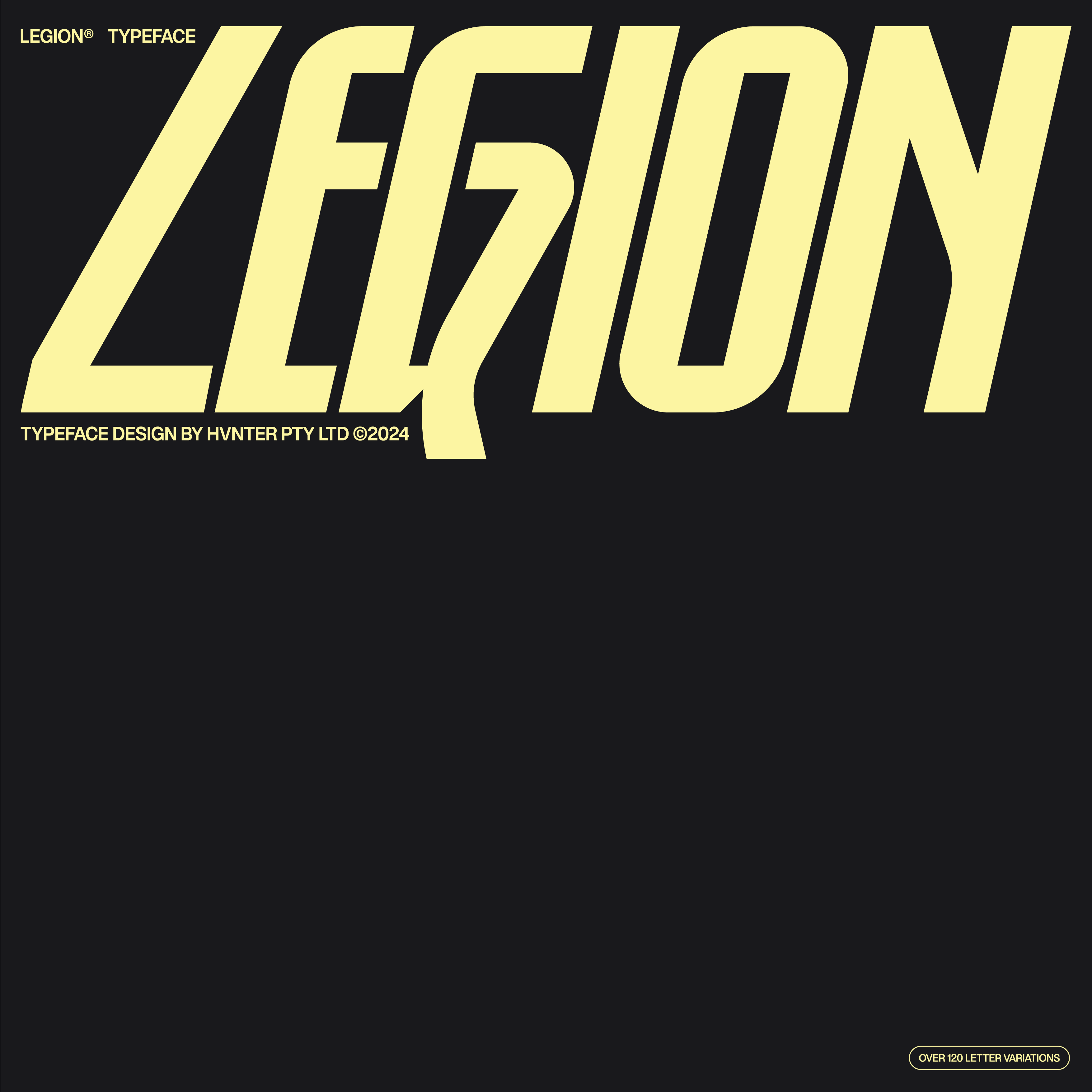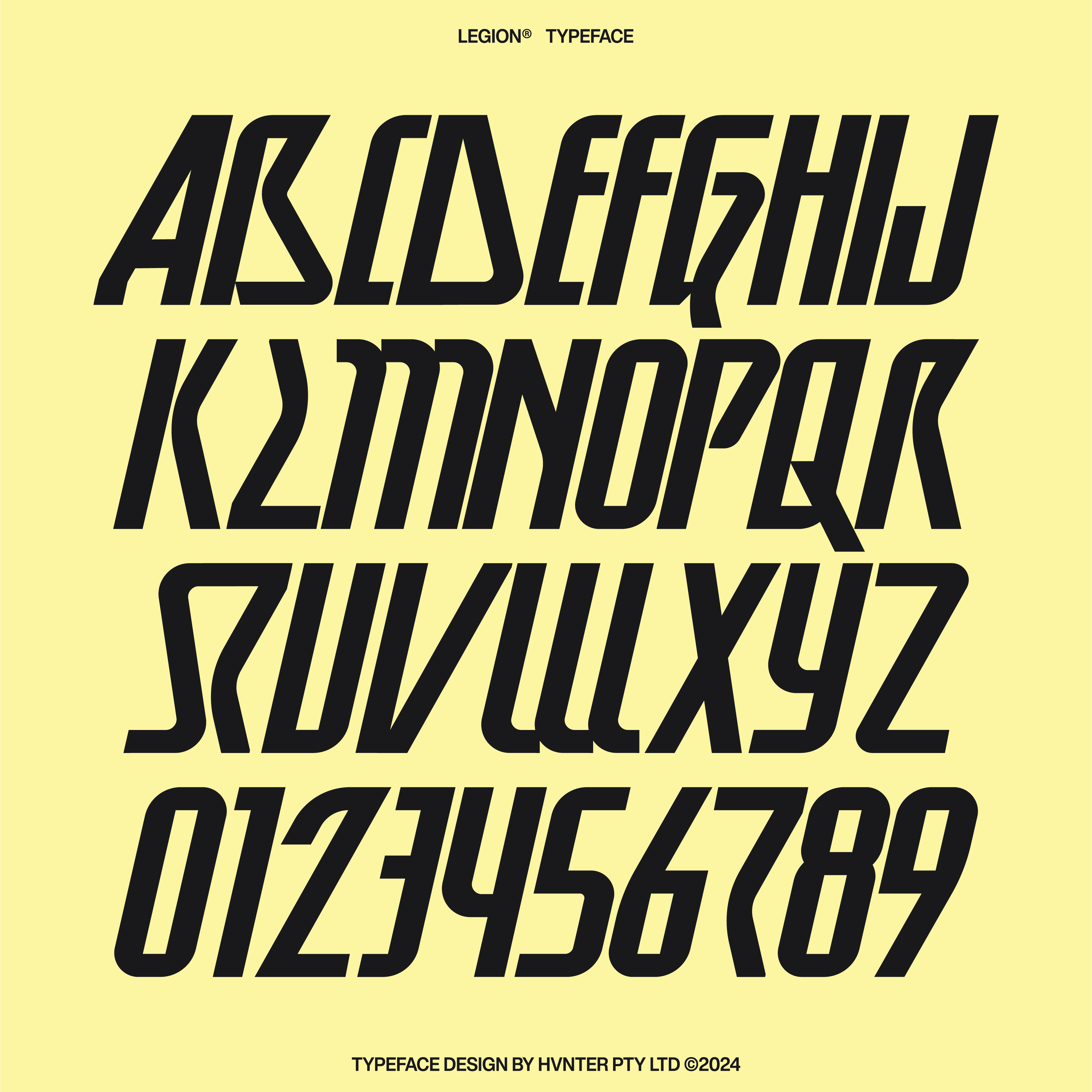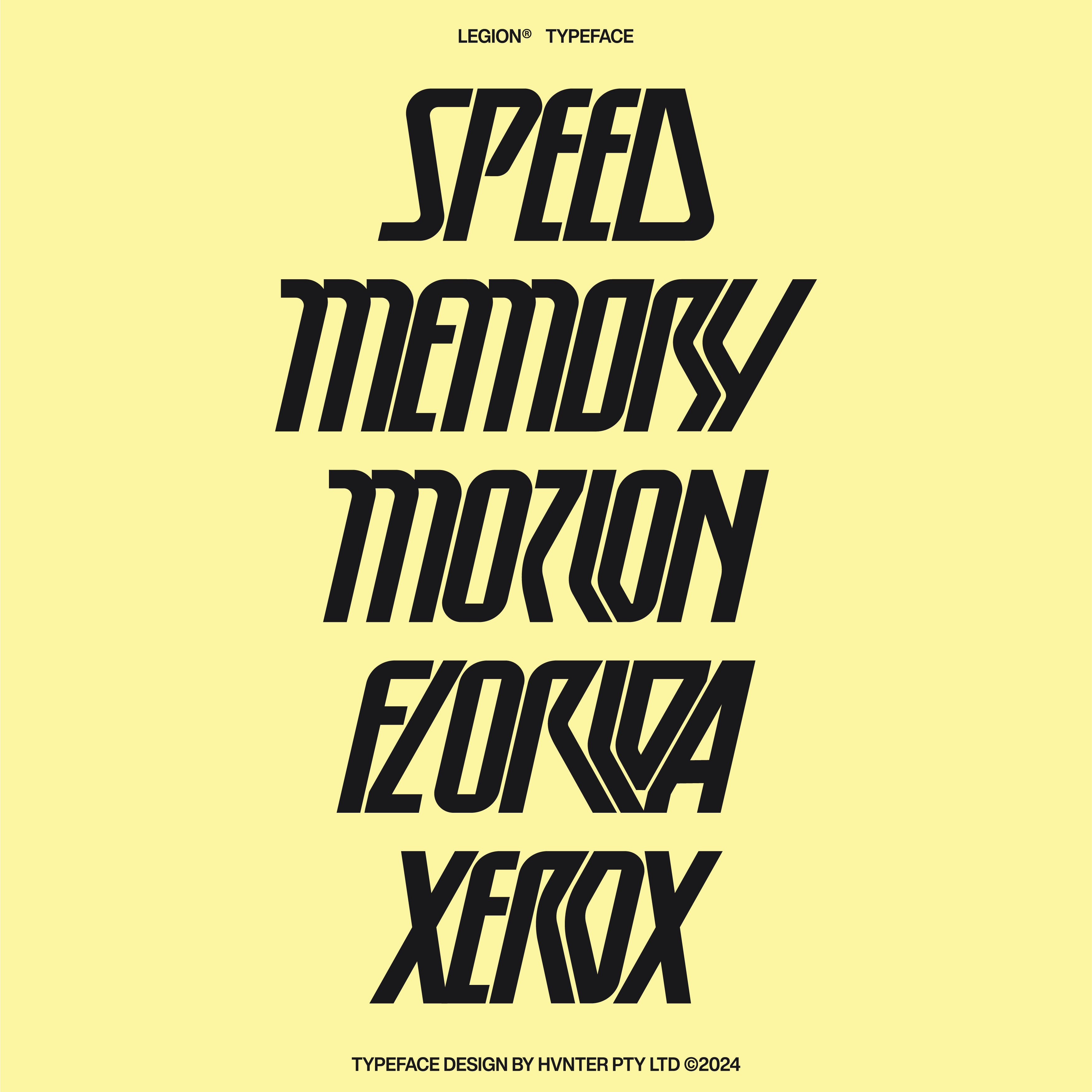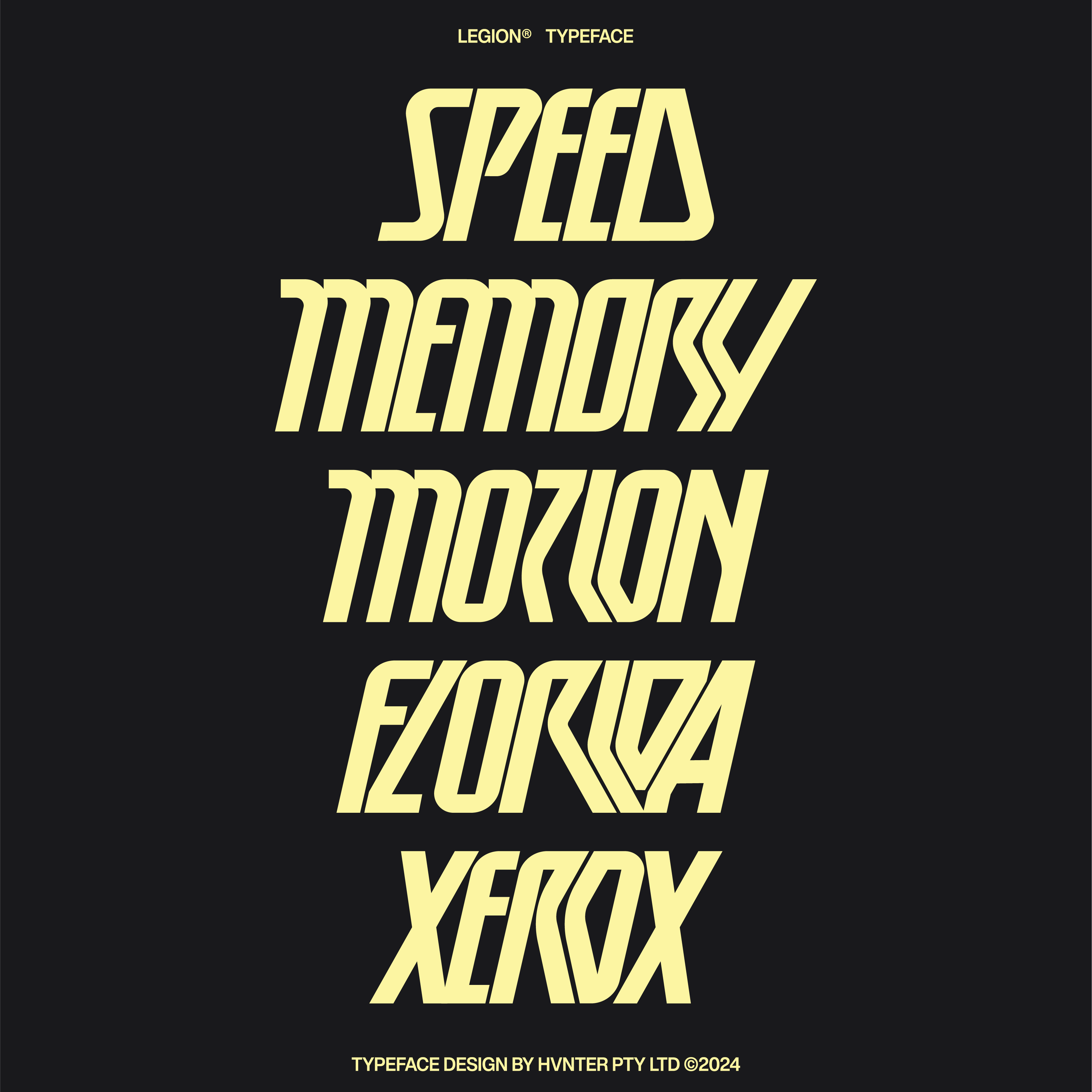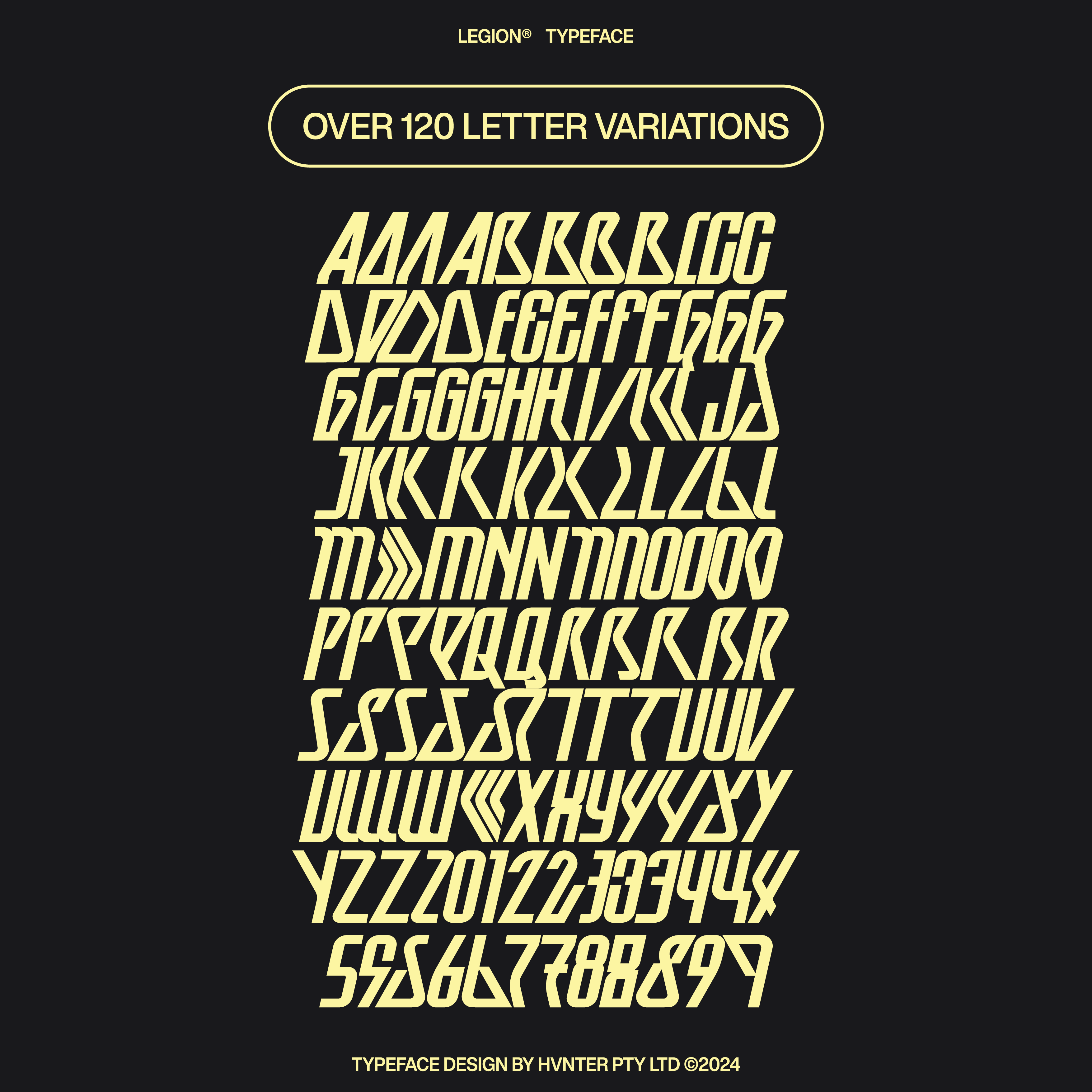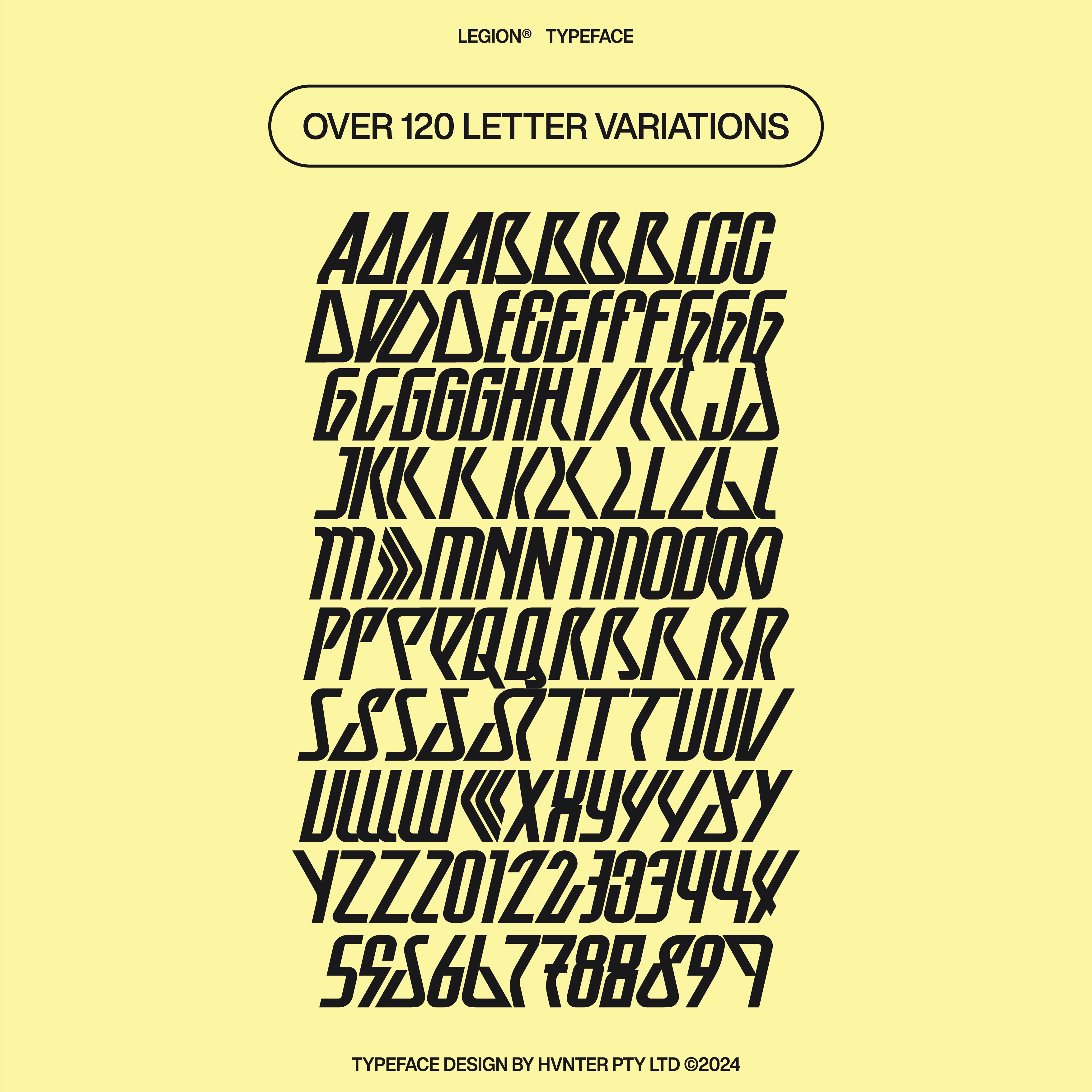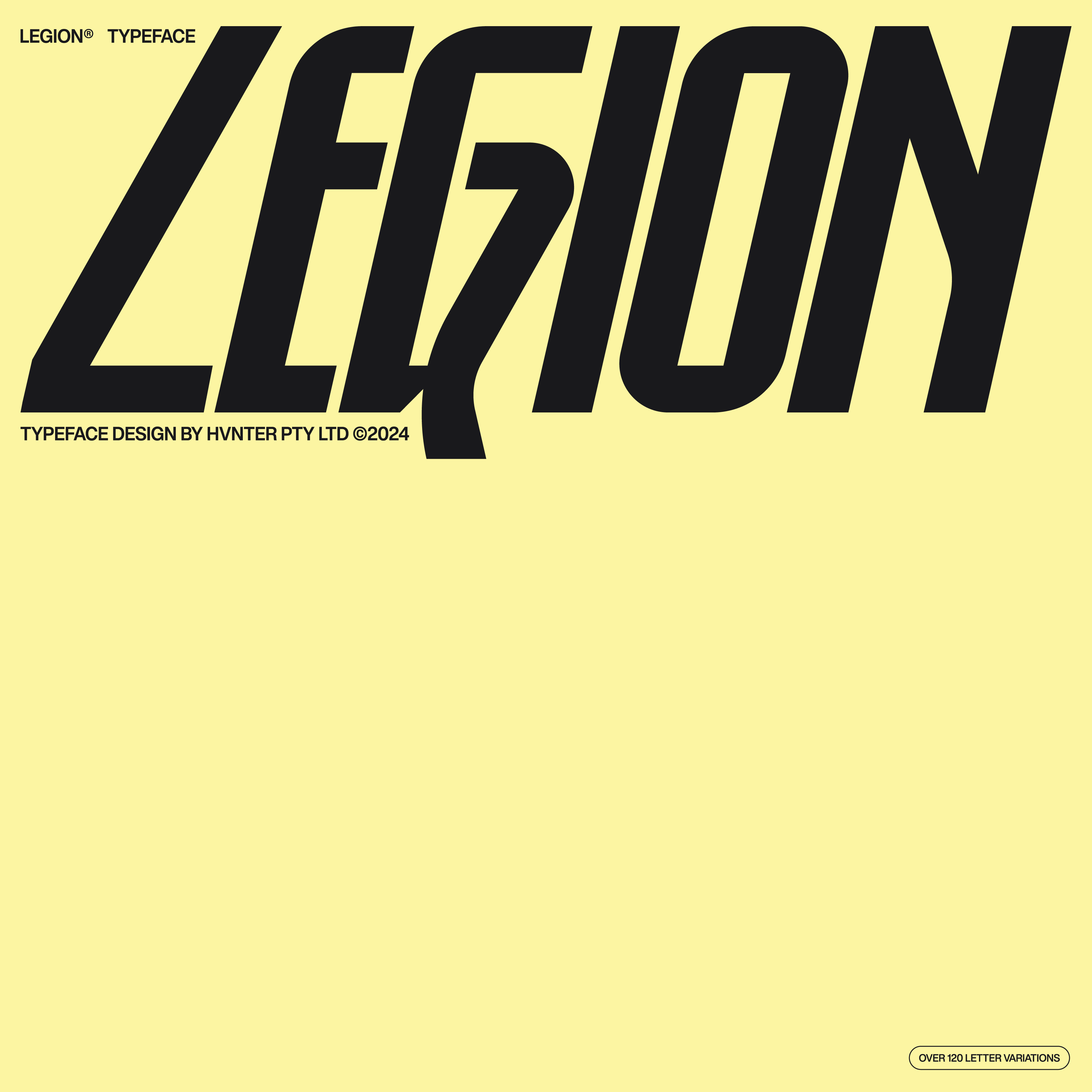
HVNTER
Legion Typeface
Slanted typeface with over 120 letter variations to construct unique typography!
Includes A-Z, 0-9, basic symbols + 120 glyph variants.